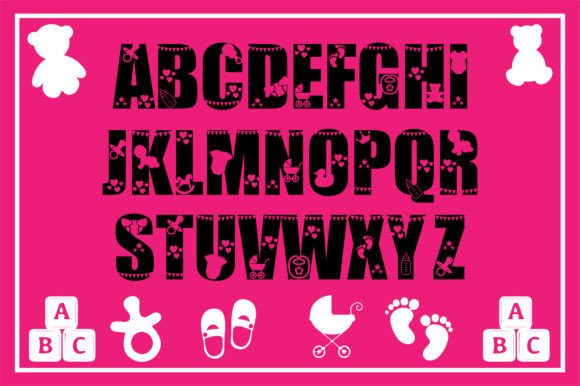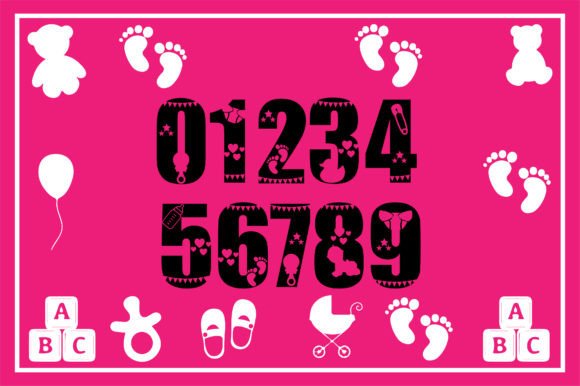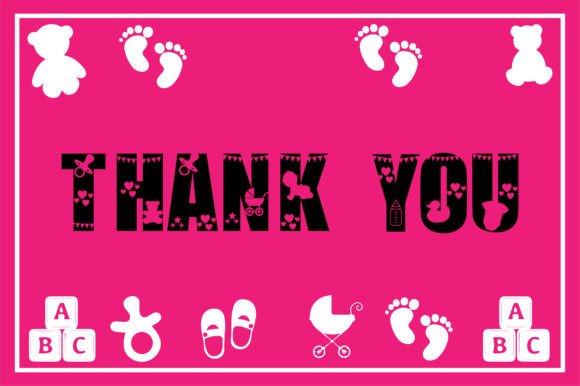
Baby Font: The Perfect Addition to Your Children’s Design Projects
Are you a designer or crafter looking for a fun and playful font to add to your children’s design projects? Look no further than Baby Font! This thick-lettered and decorative font is perfect for creating eye-catching and engaging designs for kids. In this article, we’ll take a closer look at Baby Font, its features, and how you can use it to take your designs to the next level.
What is Baby Font?
Baby Font is a unique and playful font designed specifically for children’s themed designs. Its thick letters and fun appearance make it perfect for creating bold and eye-catching text. Whether you’re designing a logo, creating a craft project, or developing a children’s book, Baby Font is sure to add a touch of whimsy and fun to your work.
Key Features of Baby Font
- Thick-Lettered Design: Baby Font features thick, sturdy letters that are perfect for creating bold and eye-catching text.
- Fun-Looking Appearance: The font’s playful design makes it perfect for children’s themed designs, adding a touch of whimsy and fun to your work.
- Perfect for Bright Colors: Baby Font looks amazing when paired with bright colors, making it perfect for creating designs that pop.
How to Use Baby Font in Your Designs
Baby Font is incredibly versatile and can be used in a variety of design projects, including:
- Children’s Books: Add a touch of fun and whimsy to your children’s book with Baby Font, perfect for titles, headings, and body text.
- Craft Projects: Use Baby Font to add a personal touch to your craft projects, such as handmade cards, invitations, and DIY decorations.
- Logos and Branding: Create a bold and eye-catching logo for your children’s brand with Baby Font, perfect for kids’ clothing, toys, and accessories.
- Social Media Graphics: Use Baby Font to create engaging and fun social media graphics for kids’ brands, including Facebook posts, Instagram stories, and Twitter headers.
Tips for Using Baby Font Effectively
To get the most out of Baby Font, here are a few tips to keep in mind:
- Pair with Bright Colors: Baby Font looks amazing when paired with bright colors, so don’t be afraid to get creative with your color palette.
- Experiment with Different Sizes: Baby Font looks great in a variety of sizes, from small and delicate to large and bold.
- Use for Headings and Titles: Baby Font is perfect for headings and titles, adding a touch of fun and whimsy to your design.
Baby Font is a fun and playful decorative font that’s perfect for children’s themed designs. Its thick-lettered design and fun appearance make it perfect for creating bold and eye-catching text. Whether you’re a designer or crafter, Baby Font is sure to add a touch of whimsy and fun to your work. So why not give it a try and see how you can use Baby Font to take your designs to the next level?